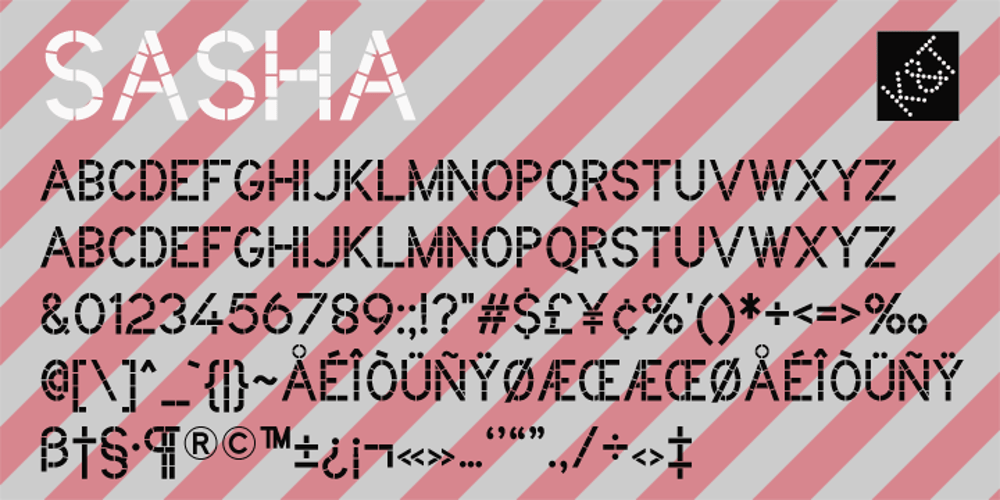
K&T Sasha
K&T Sasha font
K&T Sasha Font Family was designed by published by K and T. K&T Sasha contains 2 styles and family package options. This clean looking (all caps) font has characters made of gaps, which form the stencil divisions, spaced evenly along the strokes. The letterforms have a well-proportioned constructional appearance. The characters look like they have been built from interlocking bricks, the stencil gaps give them both rhythm and texture. The sans serif typeface also has a sense of movement because of the way the stencil gaps follow the horizontal, vertical or curved direction of the stroke.